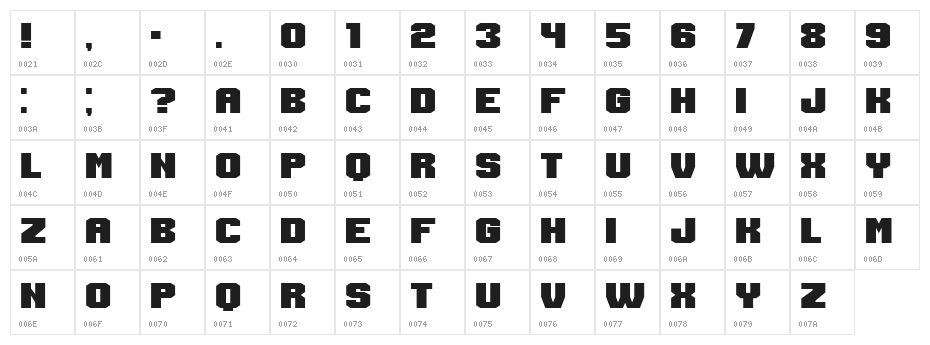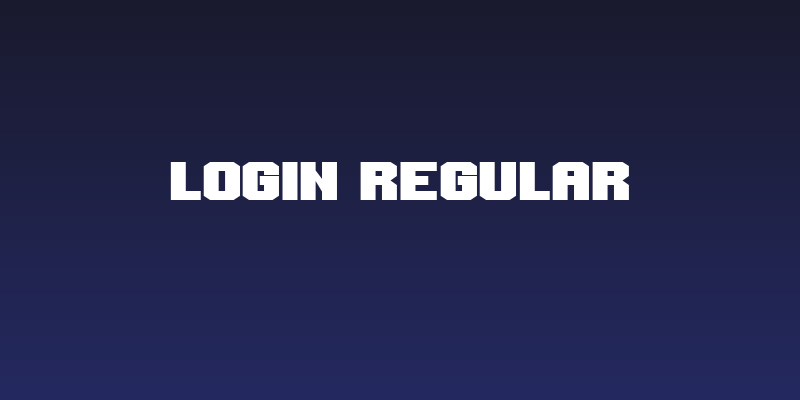
Login Regular Font
Login Regular Description
This font features bold, geometric letterforms with a strong, impactful presence. The characters are constructed with thick, uniform strokes, giving them a robust and solid appearance. The angular design and sharp edges contribute to a modern and industrial aesthetic, making it ideal for attention-grabbing headlines or branding. The uppercase letters are consistent in height, while the numerals and punctuation maintain the same bold style, ensuring a cohesive look across all text. The font's design is straightforward yet striking, suitable for projects that require a commanding visual impact.
| Proposed Projects | Ideal for branding, posters, headlines, and any design requiring a strong visual impact. |